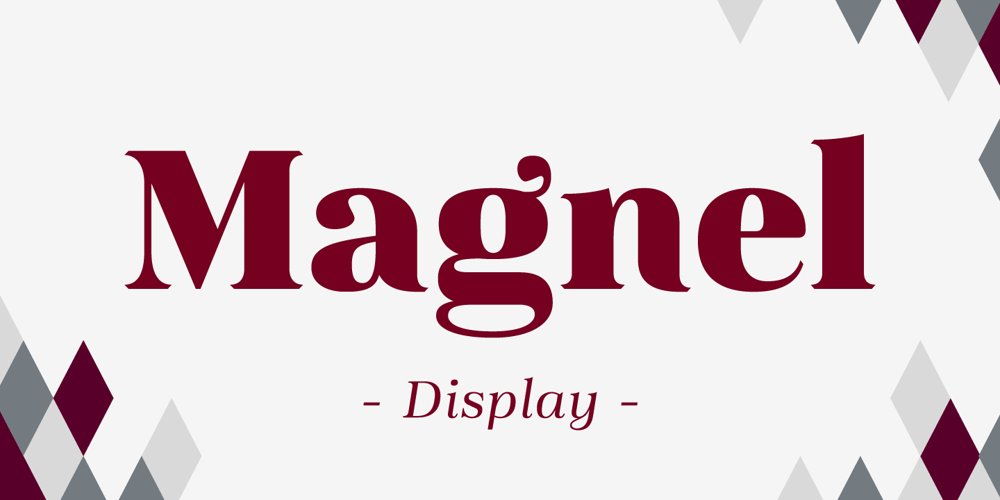
Magnel Display
Magnel Display font
Magnel Display Font Family was designed by Eimantas Paškonis and published by Eimantas Paškonis. Magnel Display contains 8 styles and family package options. A display Didone of four weights plus italics. The defining stylistic features are large x-height and asymmetric legs that give feminine, oriental, floral look. Includes accented swashes, decorative ligatures and oldstyle numerals.